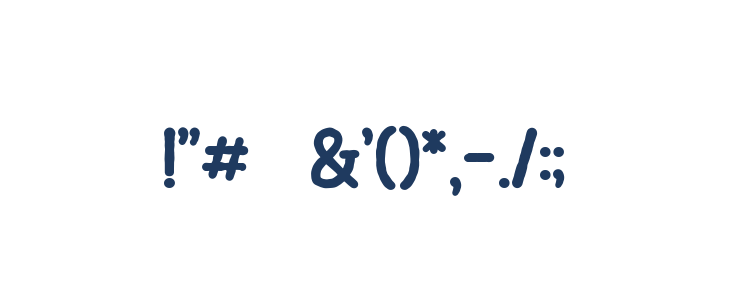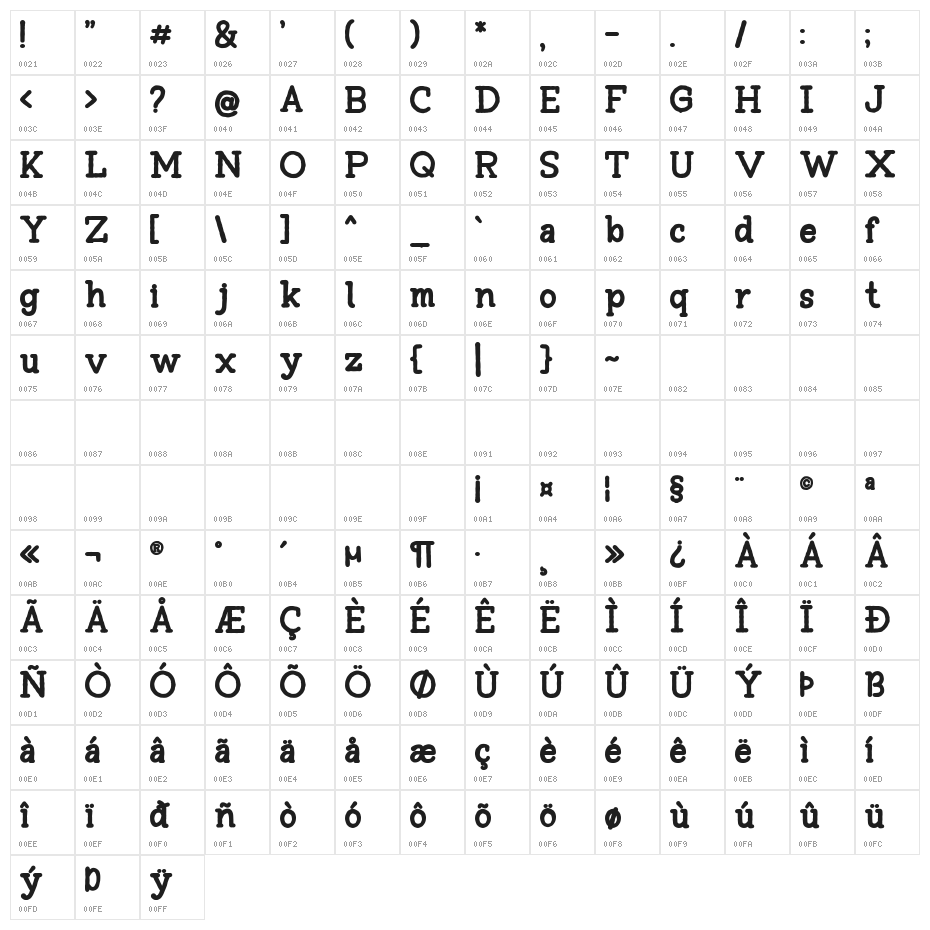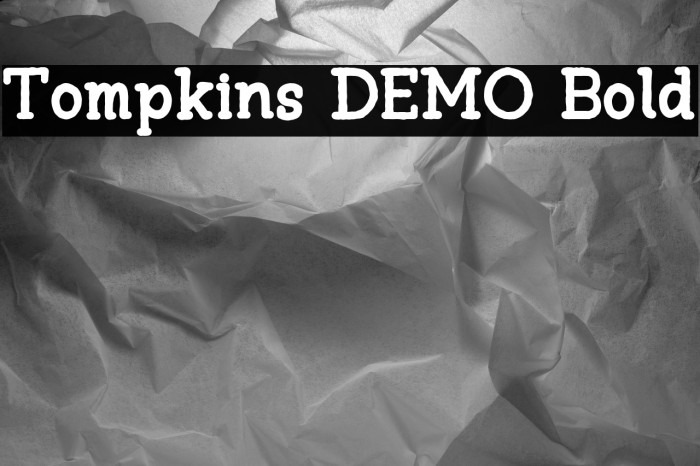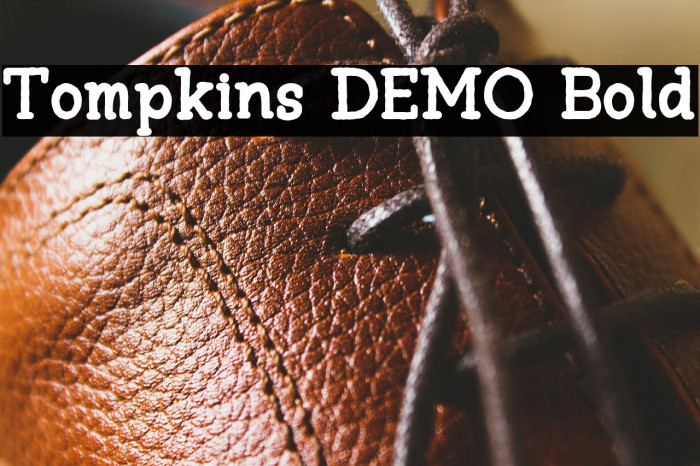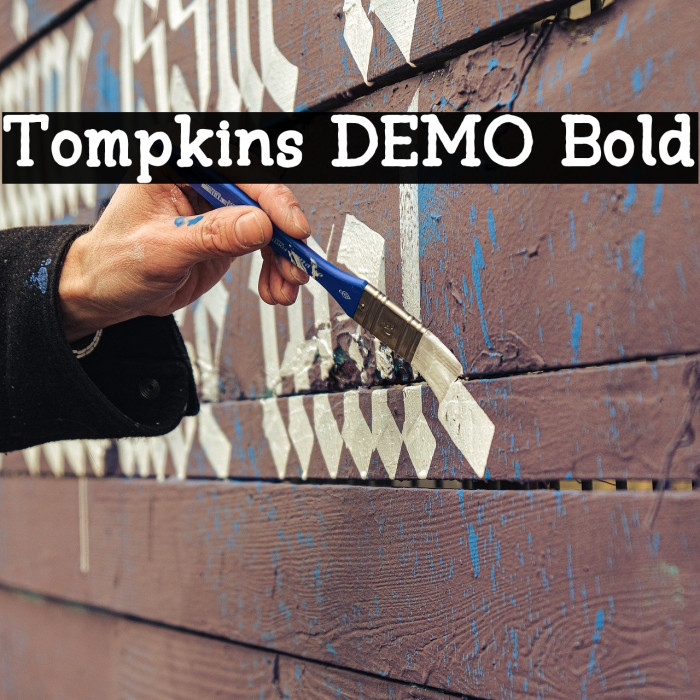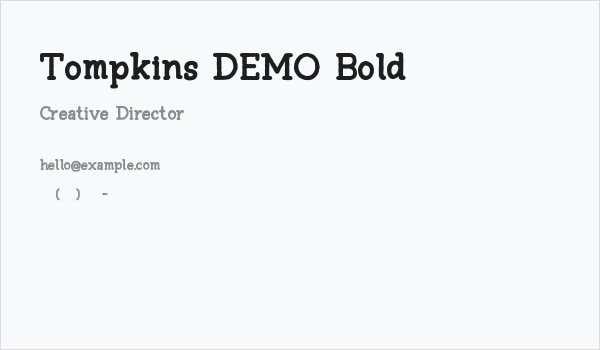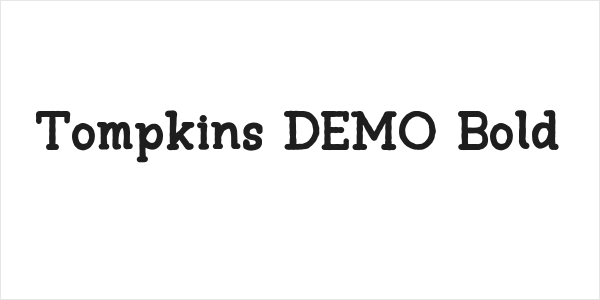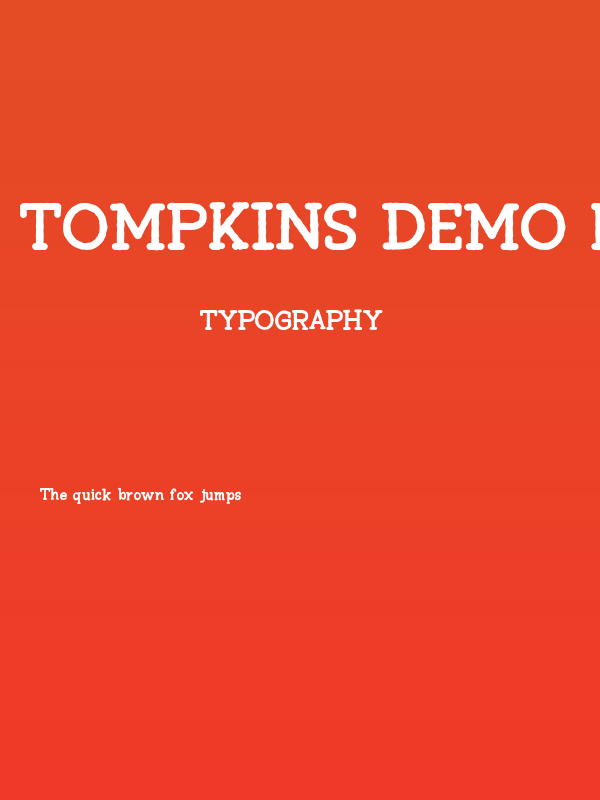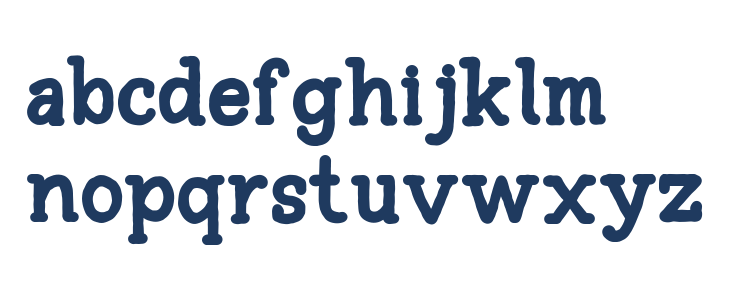
Tompkins DEMO Bold Font
Tompkins DEMO Bold Description
This font features a bold, robust design with a strong presence. The characters are slightly rounded, giving them a friendly and approachable appearance. The uppercase letters are uniform in height, while the lowercase letters maintain a consistent baseline, enhancing readability. The font includes a full set of uppercase and lowercase letters, numbers, and a variety of special characters. Its bold weight and slightly condensed width make it suitable for impactful headlines and titles. The stroke contrast is low, providing a uniform thickness throughout each character, which contributes to its solid and stable look.
| Proposed Projects | Ideal for branding, posters, headlines, and any project requiring a bold and approachable typeface. |